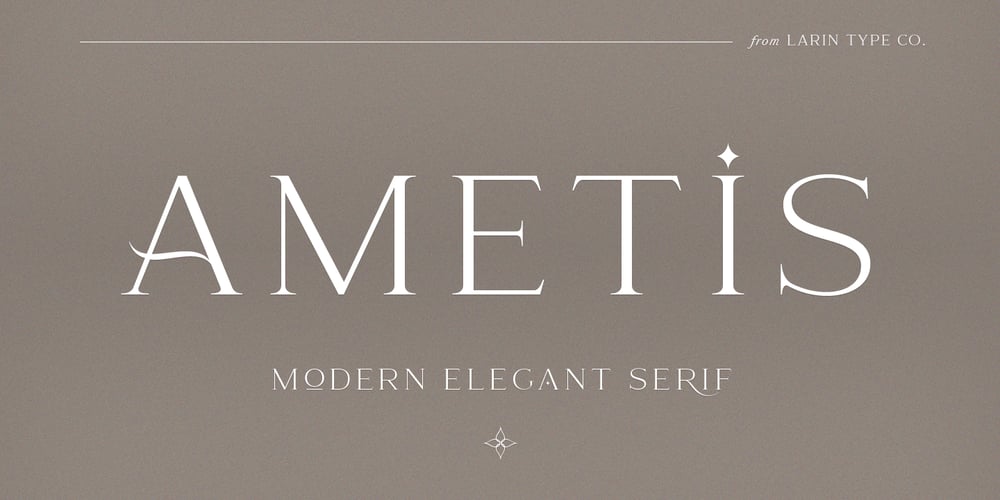
Ametis Font Family was designed by Pavel Larin and published by Larin Type Co. Ametis contains 1 styles and family package options. Ametis is a modern elegant serif display font. In this font you will find many ligatures and alternates that give great potential for creating logos, branding, arranging wedding invitations, business cards, packaging and much more. This font will help to realize all your ideas and will not leave indifferent even the most sophisticated. Try it, change alternates and ligatures and you will see how many options you can get by creating in a classic style or a more elegant style. Lowercase completely duplicate uppercase, they have the same alternates and ligatures, but differ in size from uppercase. This font is easy to use has OpenType features.